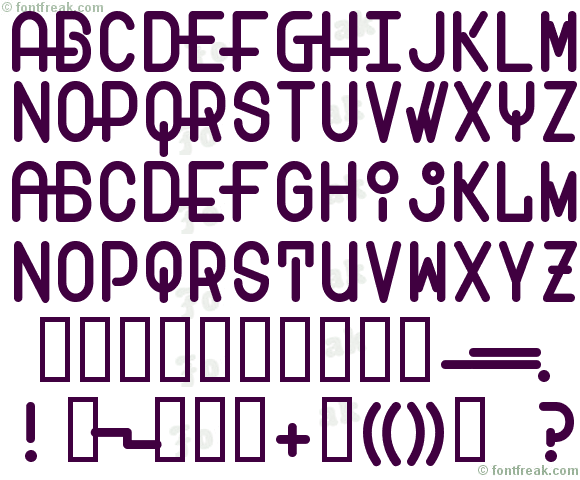
Transam
About Transam
Transam, designed by Chank Foo, is a striking display font that embodies a unique blend of modernity and playfulness. As a freeware typeface, it offers an accessible option for various design projects. The font features bold, geometric letterforms with a consistent stroke weight, creating a sense of uniformity and clarity. Its clean lines and minimal contrast make it highly legible, while the slight curvature of certain characters adds a touch of personality. The spacing is well-balanced, ensuring that each letter stands out without overwhelming the overall composition.
Transam excels in a variety of creative applications. Its bold presence makes it an excellent choice for eye-catching movie posters that require a dynamic title treatment. The font also works wonderfully for branding projects, especially for businesses looking to convey a modern and approachable image. Additionally, it can elevate restaurant menus, making dish names pop, and is perfect for promotional materials aimed at a younger audience. Graphic designers, small business owners, and content creators will find Transam invaluable for its versatility and flair.
What sets the Transam font apart is its ability to balance boldness with simplicity, making it suitable for both professional and casual contexts. Its distinctive style captures attention while remaining functional, allowing it to be used across a range of mediums. Whether you are crafting an engaging social media graphic or designing a logo, the Transam font free download provides an exciting option that can enhance your creative endeavors. With its unique aesthetic and practical usability, Transam is a standout choice for anyone looking to make a memorable impact.